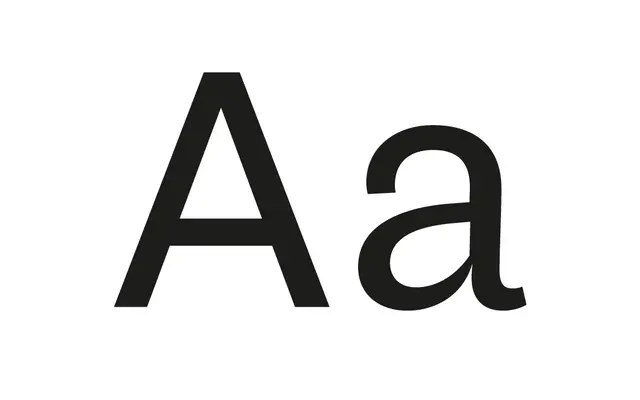
Dia
A four-weight early-grotesk revival that mixes distinct historical models in one family, with hairline accents, circled numbers and arrows.
Dia distils the diverse spirit of the first jobbing grotesks of the mid-1800s into a concise eight-style family that works for both text and display. The four weights with matching italics deliberately avoid a uniform pattern: each celebrates a different historical model, from light and narrow with curling terminals to heavy and broad with ends that point outward. Compatible vertical proportions let them sit harmoniously in the same line, and an alternate set of hairline accents and punctuation can dial up the expressive register. The OpenType feature set includes figures and fractions, an Extended Latin character set and a batch of circled numbers and arrows.
Schick Toikka frame Dia as a family that captures the spirit of mid-1800s jobbing grotesks, when printers mixed and matched sans serifs of varying shapes and sizes; the four weights deliberately do not adhere to a uniform pattern, each celebrating a different historical model.